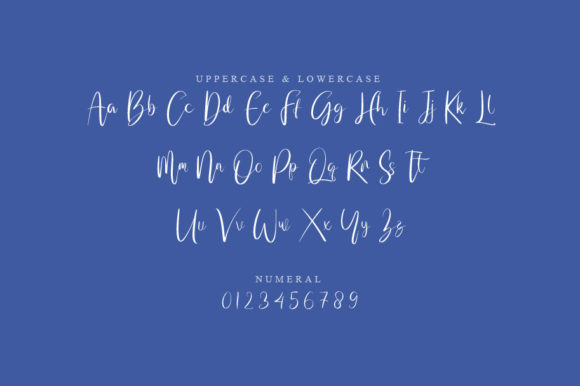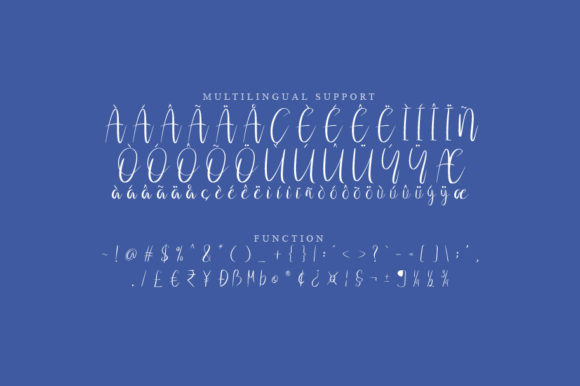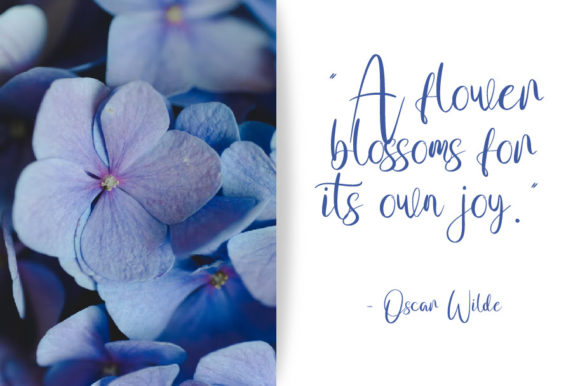
Qife Font
About Qife Font
Qife Script is a font that exudes a sense of timeless beauty and elegance through its charming handwritten style. With its carefully crafted curves and strokes, Qife Script offers a perfect blend of sophistication and creativity, making it an excellent choice for a variety of design projects.
When it comes to logo design, Qife Script can be a powerful tool to create eye-catching and memorable logos. Its unique and distinctive letterforms add a personal and artistic touch to your brand identity, helping it stand out in a sea of competitors. Whether you’re aiming for a classic and refined look or a more modern and playful vibe, Qife Script can adapt to your vision, giving your logo a truly captivating appeal.
Branding projects benefit greatly from Qife Script’s versatility. Whether you’re working on packaging, labels, or promotional materials, this font brings a sense of authenticity and charm that resonates with consumers. Its timeless elegance adds a touch of class to your brand, enhancing its overall image and making a lasting impression on your target audience.
Quotes, whether shared on social media, in printed materials, or as part of your brand messaging, gain a new dimension of visual impact with Qife Script. The unique and beautiful touch of each letter enhances the emotional resonance of the words, helping you convey your message with depth and sincerity. Whether it’s motivational quotes, inspirational messages, or heartfelt sentiments, Qife Script elevates the power of words.
The versatility of Qife Script extends to various design contexts, such as invitations, stationery, and event materials. Its timeless and elegant aesthetic adds a touch of refinement to wedding invitations, greeting cards, and other special occasions. The font’s ability to infuse warmth and personality into your designs ensures that each project is a true work of art.
Qife Script is more than just a font; it’s a creative tool that empowers you to bring your design ideas to life with an authentic and captivating touch. Its timeless appeal and unique letterforms give your projects a sense of character and individuality, making it an essential choice for designers, entrepreneurs, and anyone seeking to create designs that leave a lasting impression.